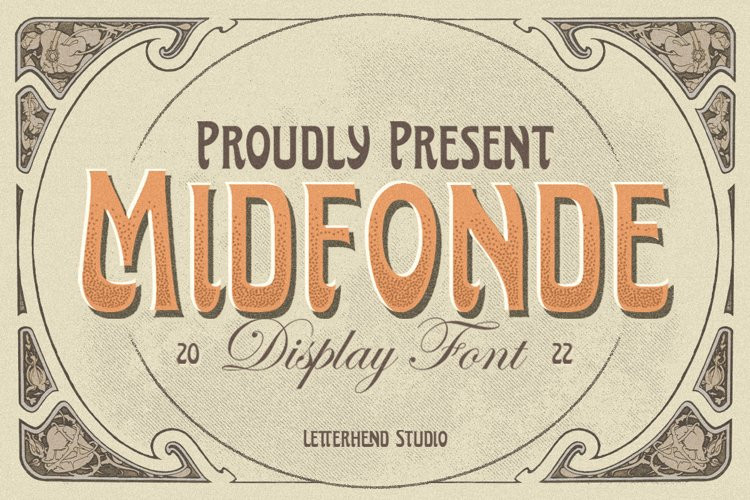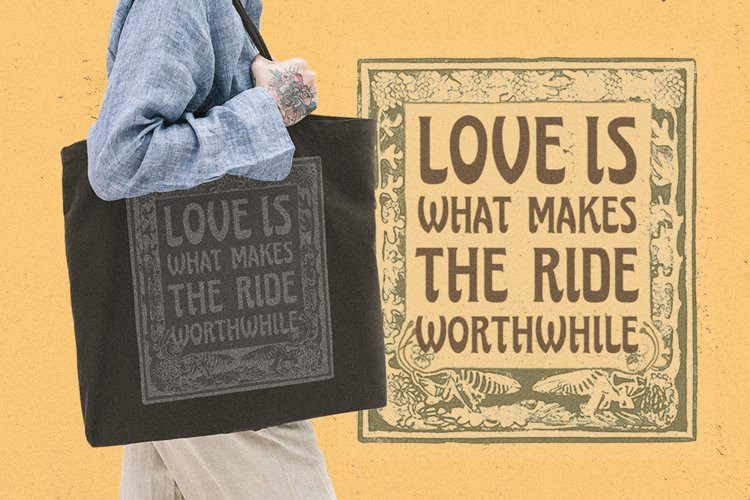
Midfonde Font
Midfonde FontMidfonde is a display typeface inspired by art deco style. This type of font perfectly made to be applied especially in logo, headline, signage and the other various formal forms such as invitations, labels, logos, magazines, books, greeting / wedding cards, packaging, fashion, make up, stationery, novels, labels or any type of advertising purpose.